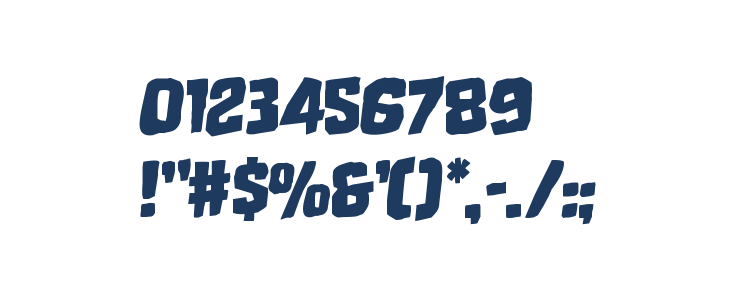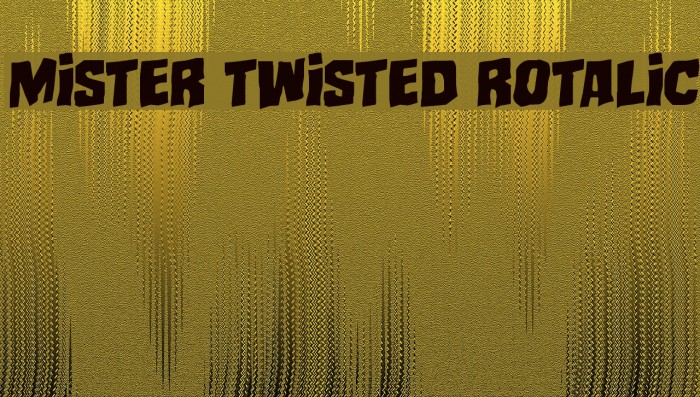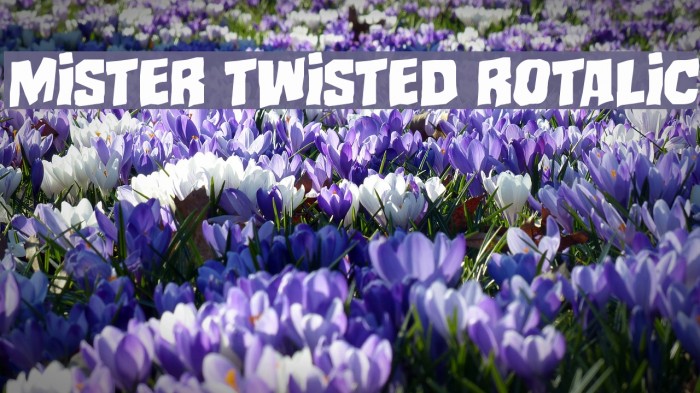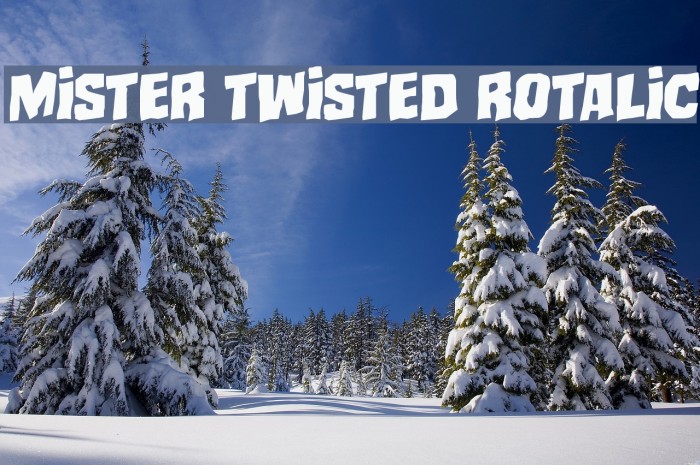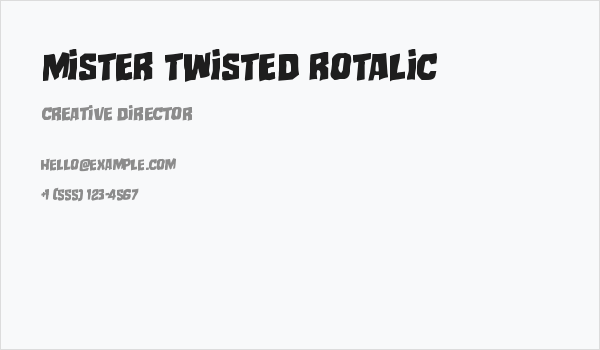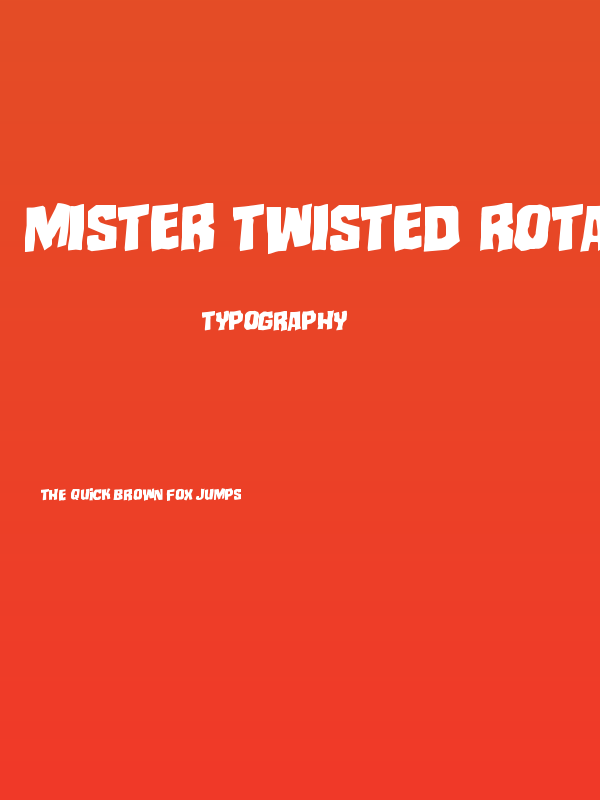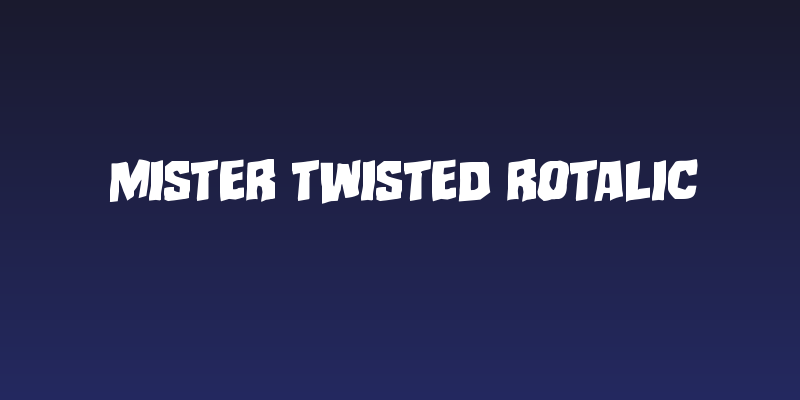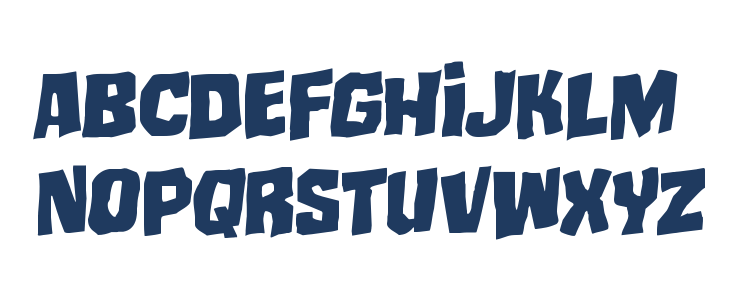
Mister Twisted Rotalic Font
Mister Twisted Rotalic Description
This font exhibits a bold and dynamic style with a twisted, irregular appearance that gives it a playful and energetic vibe. The characters are heavily stylized with uneven edges and varying stroke widths, creating a sense of movement and spontaneity. The uppercase and lowercase letters maintain a consistent design, while the numbers and special characters follow the same twisted aesthetic. This font is eye-catching and ideal for projects that require a fun and unconventional look.
| Proposed Projects | Ideal for posters, comic book titles, video game graphics, and any creative project needing a lively and unique typeface. |